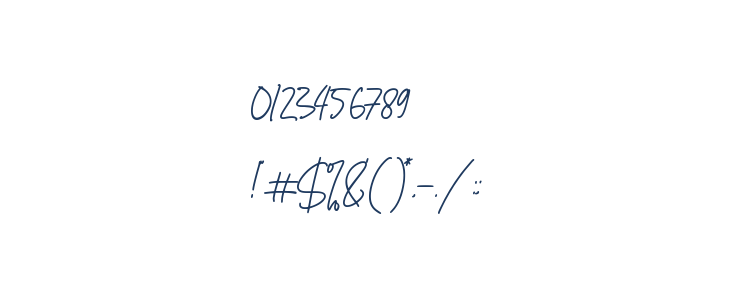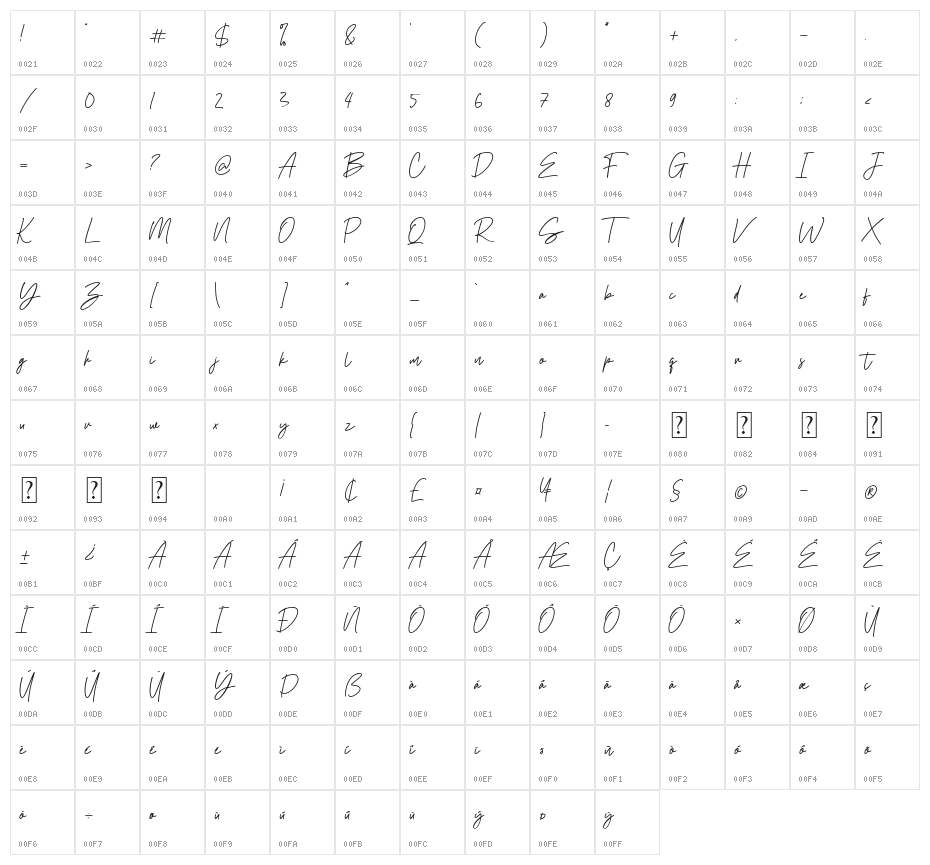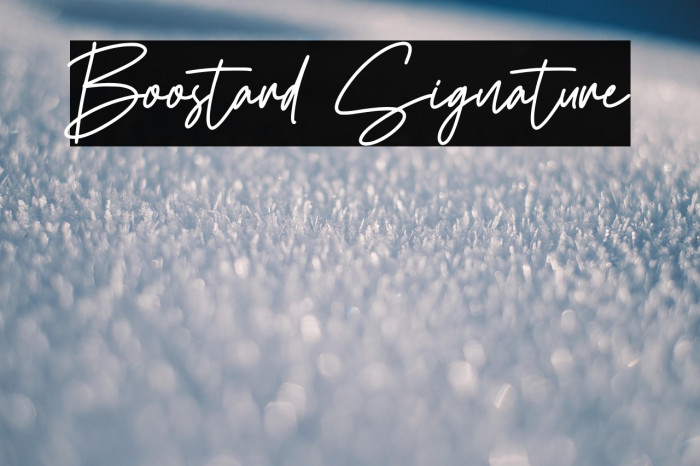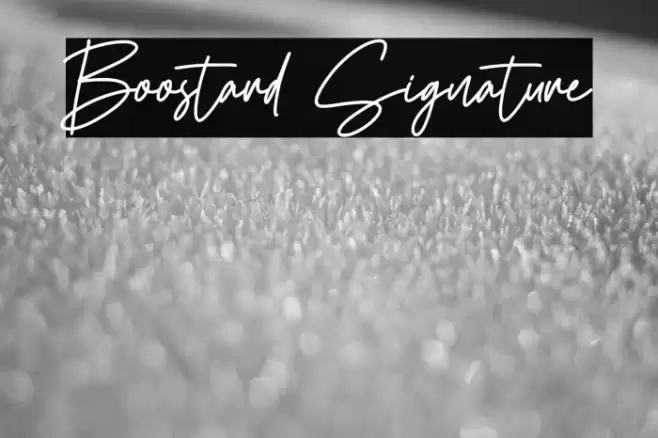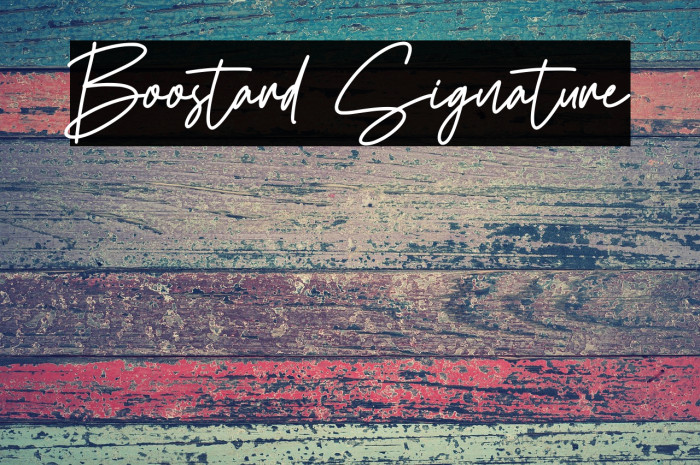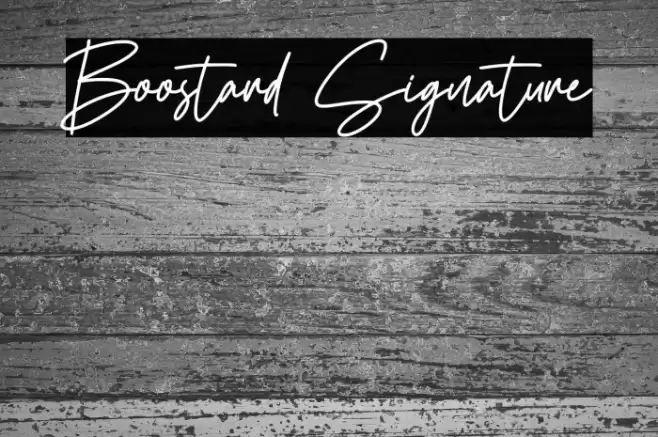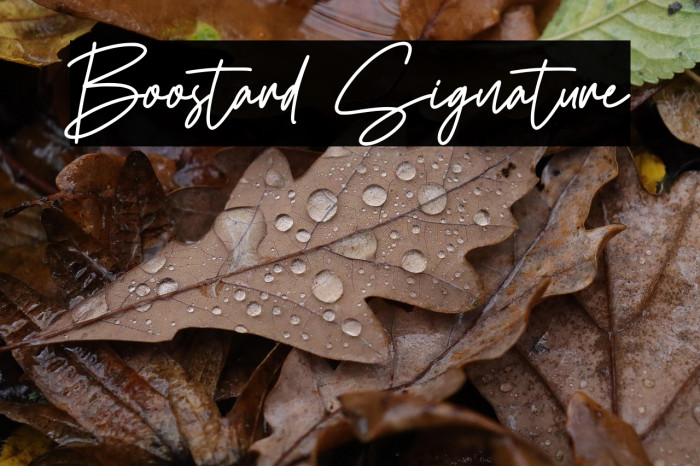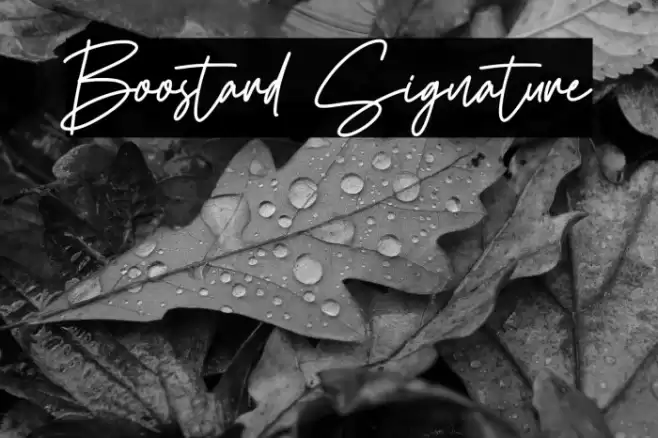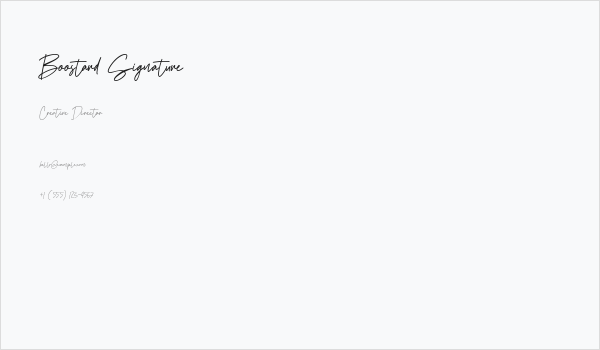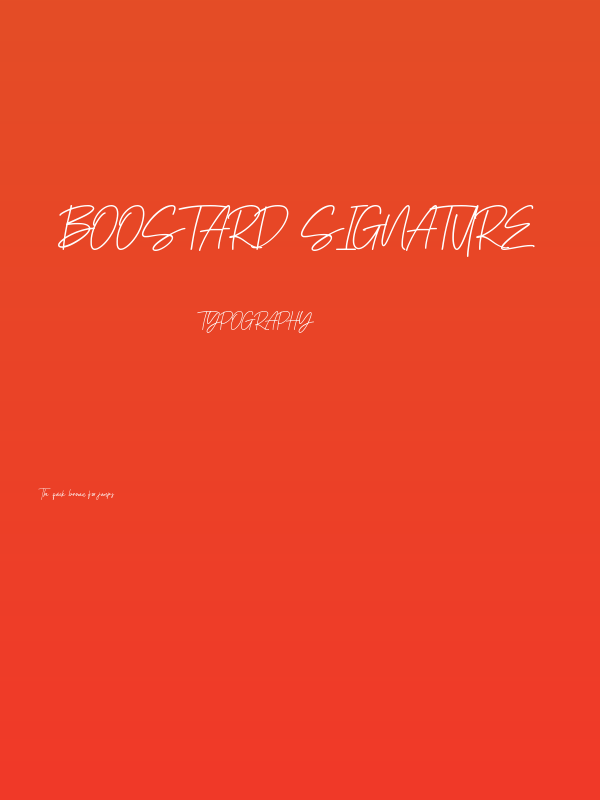
Boostard Signature Font
Boostard Signature Description
This font exudes a modern, handwritten style with a fluid and elegant script. The characters are connected in a smooth, flowing manner, giving it a personal and artistic touch. The uppercase letters are tall and slightly slanted, while the lowercase letters maintain a consistent baseline with gentle curves. The numerals and special characters complement the overall aesthetic, maintaining the same flowing and cursive style. This font is ideal for projects that require a personal, handwritten feel, such as invitations, greeting cards, or branding materials that aim to convey elegance and sophistication.
| Overall Style | Modern, Elegant |
| Proposed Projects | Ideal for invitations, greeting cards, personal branding, and elegant design projects. |